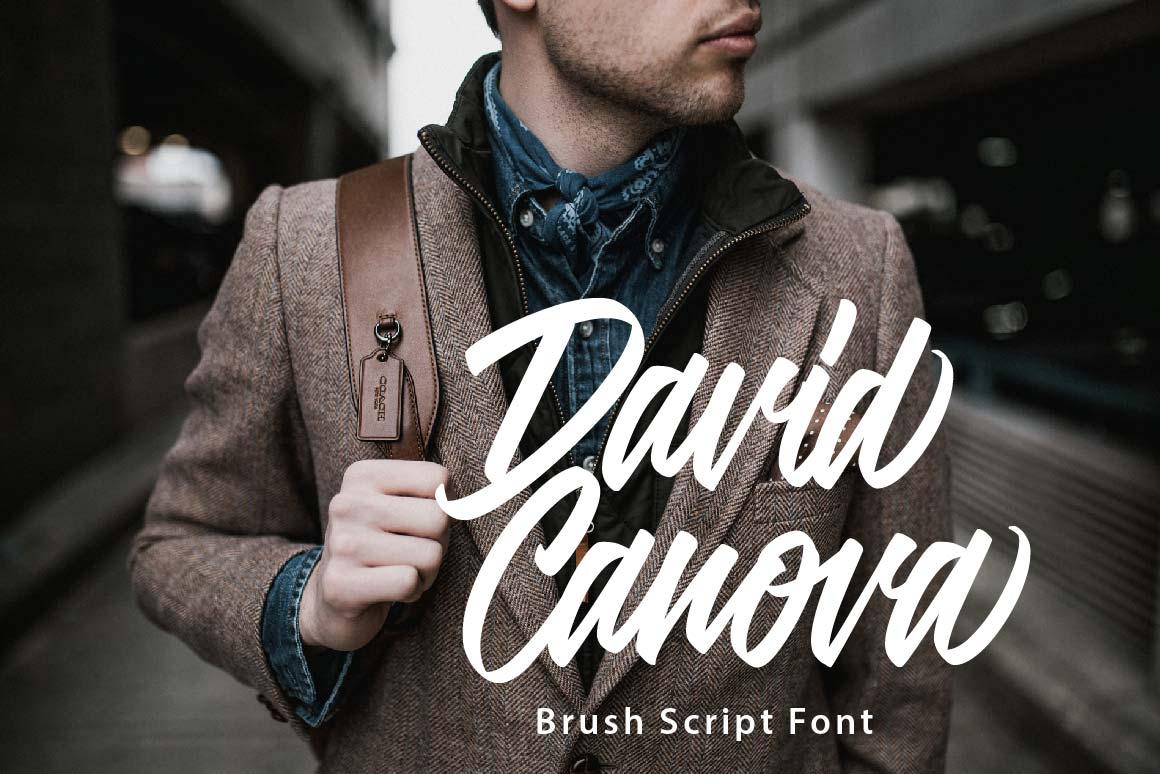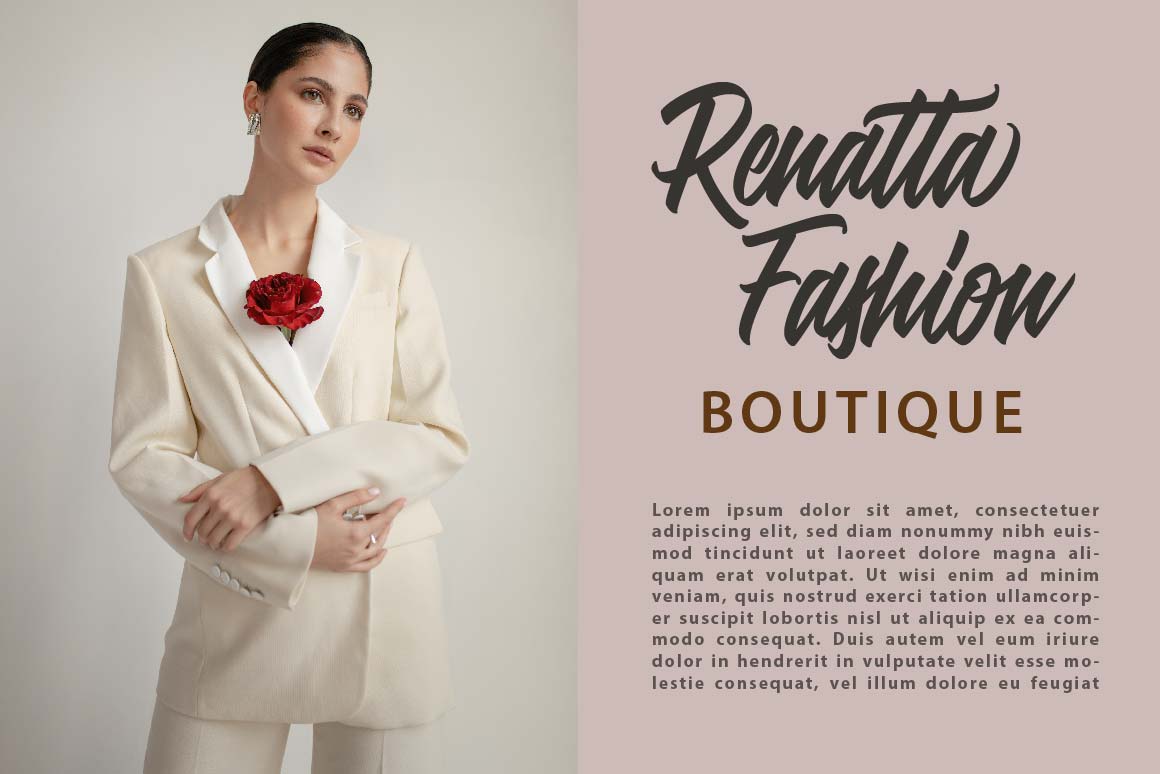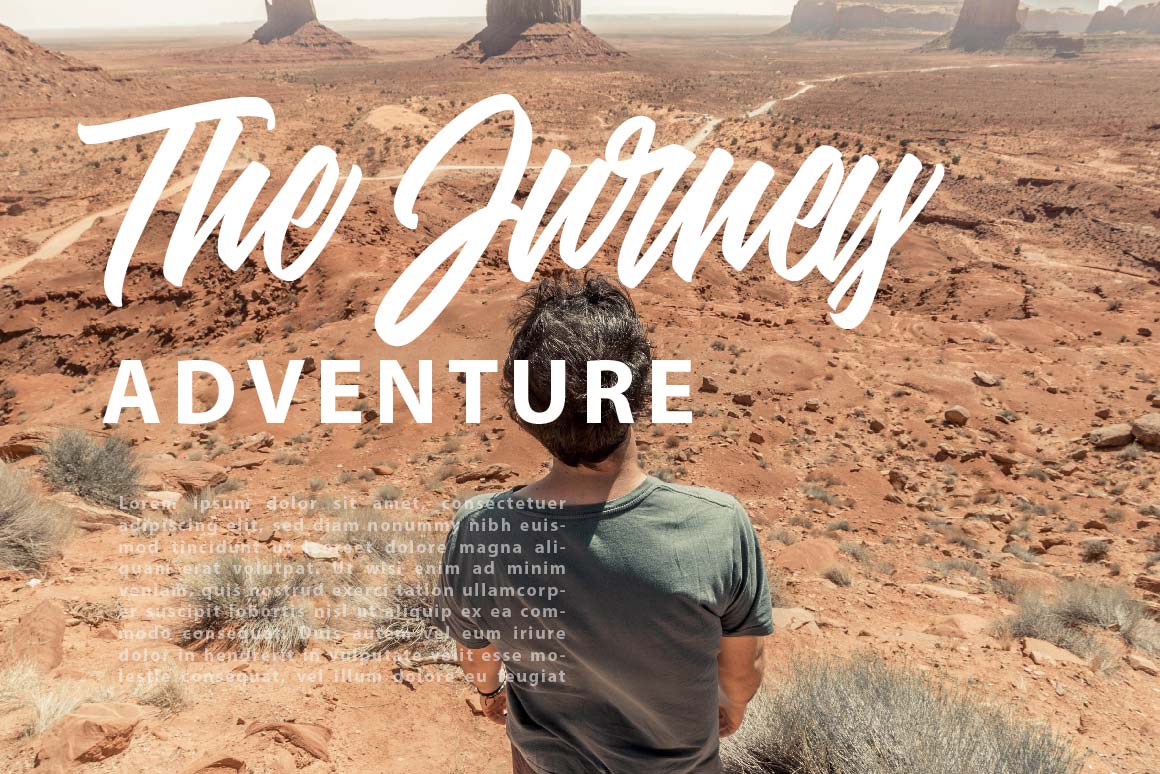
Jasmine Vellonica Font
Jasmine Vellonica Script Font is a relaxed and flowing handwritten font. It looks stunning on wedding invitations, thank you cards, quotes, greeting cards, logos, business cards and every other design which needs a handwritten touch. This font is PUA encoded which means you can access all of the glyphs and swashes with ease!